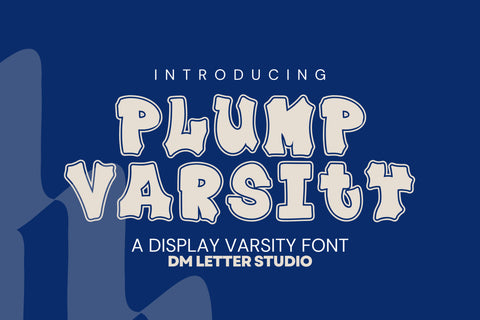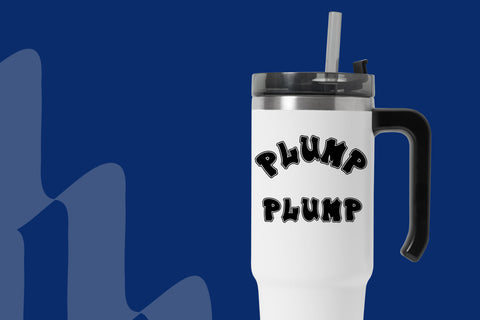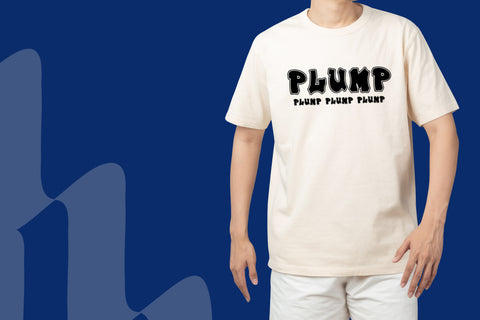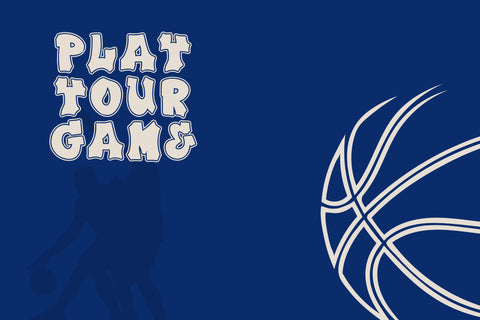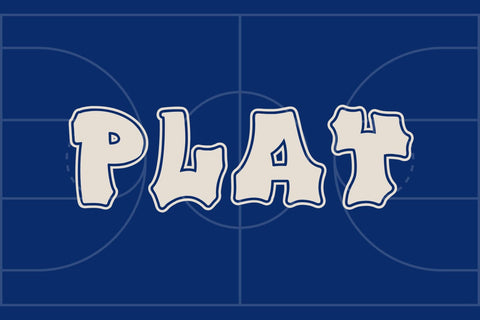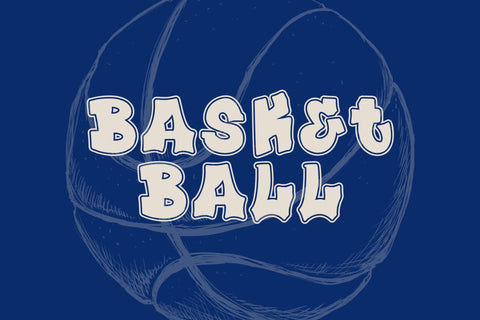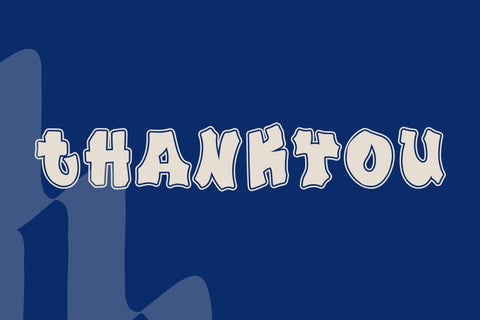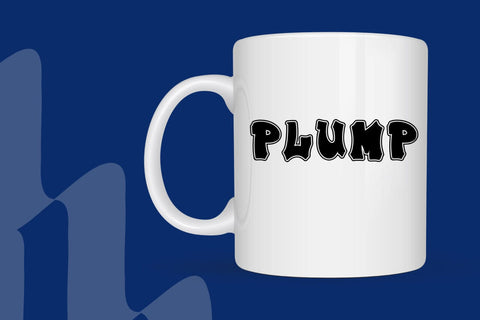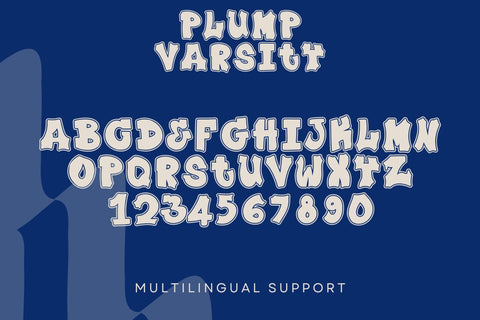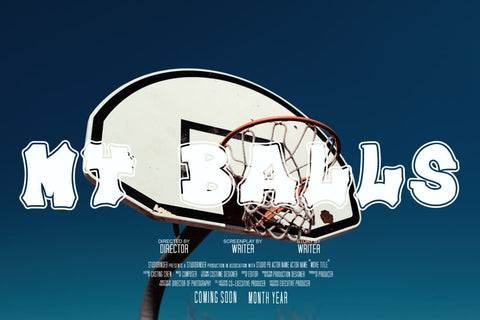
Plump Varsity Font
Meet Plump Varsity Font
Plump Varsity Font blends classic college lettering with friendly bubble energy. The result is bold, upbeat headlines that feel athletic and approachable at the same time. Rounded strokes add warmth; steady spacing keeps every word clear on shirts, hoodies, stickers, pennants, banners, water bottles, and social posts. Use it for school spirit gear, pep-rally signs, sports camps, gamer squads, graduation merch, and campus clubs. Because the forms are chunky and clean, thumbnails pop on marketplaces and still look sharp on large prints.
Why creators love this varsity font
First, it shouts team pride without looking harsh. Next, it cuts cleanly for Cricut, Silhouette, and laser projects. Then it layers beautifully with outlines and drop shadows, so two-color effects come together in minutes. As a result, you can build full collections—jersey tees, sideline flags, locker labels, vinyl decals, and scoreboard graphics—using one cohesive style.
Ready for gear, posters, and posts
Plump Varsity in action
Jersey names, player numbers, and mascot slogans
Spirit week banners, pep-rally posters, booster-club merch
Graduation hats, senior night gifts, and locker door magnets
E-sports team logos, tournament brackets, and stream overlays
Design tips for all-star results